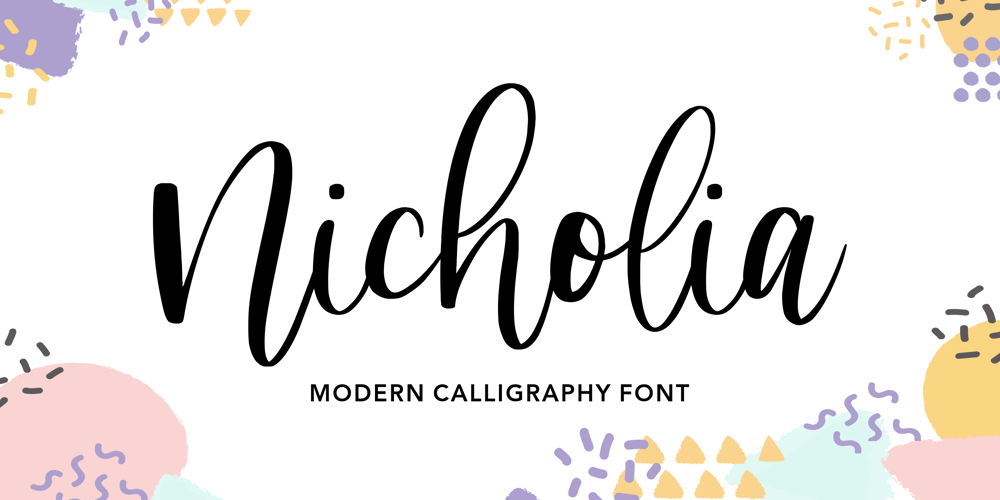
Nicholia Font Family was designed by Restu Angga and published by Balpirick. Nicholia contains 1 styles and family package options. Nicholia is a cute and modern handwritten font with an incredibly friendly feel. It features gorgeous swashes and ligatures that make this script incredibly versatile. Whether you’re looking for fonts for Instagram or calligraphy scripts for DIY projects, Nicholia will turn any creative idea into a true piece of art!